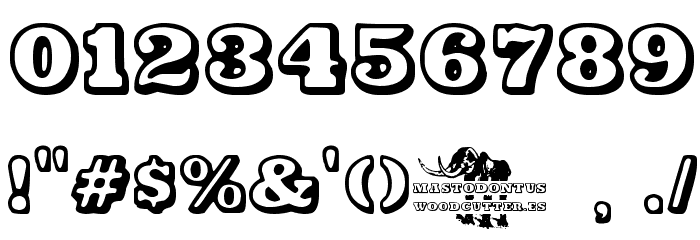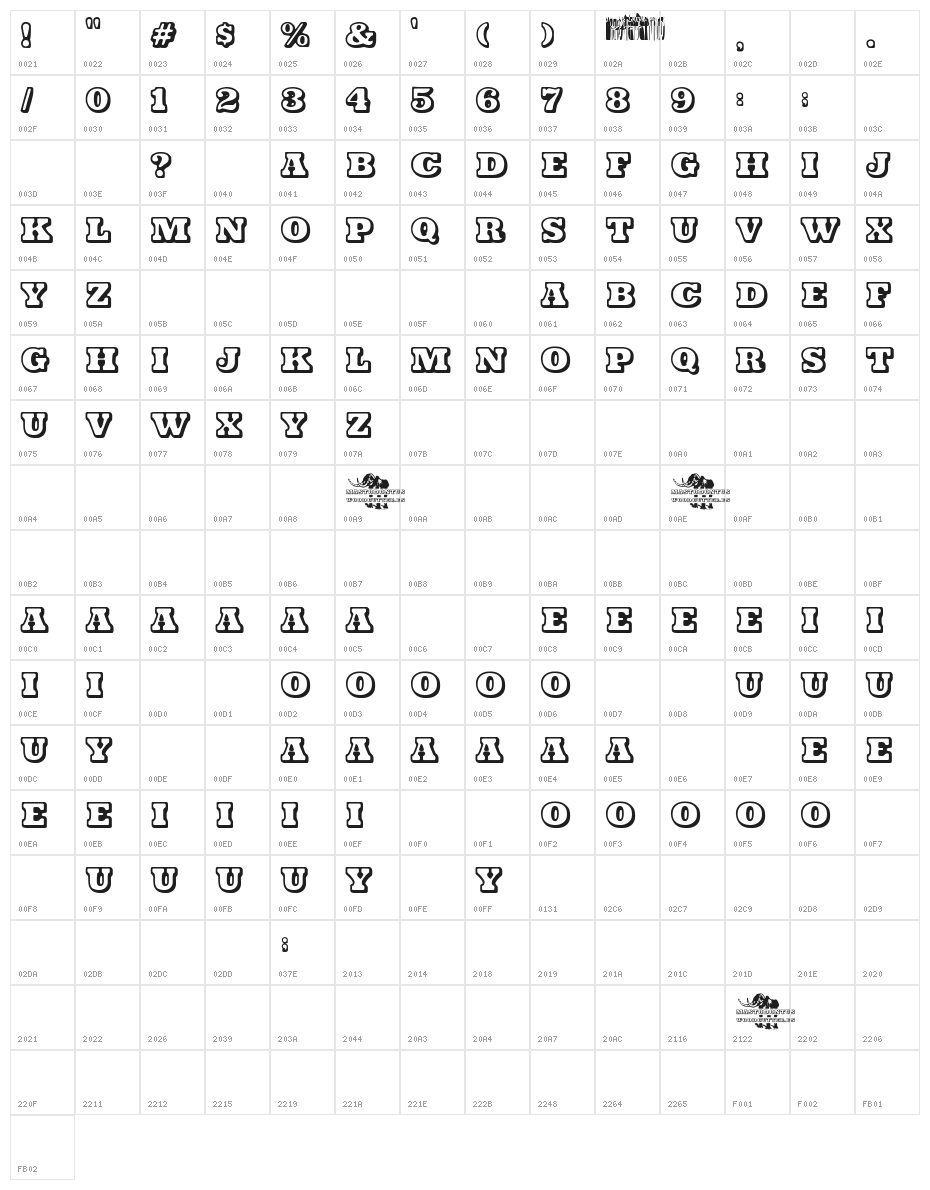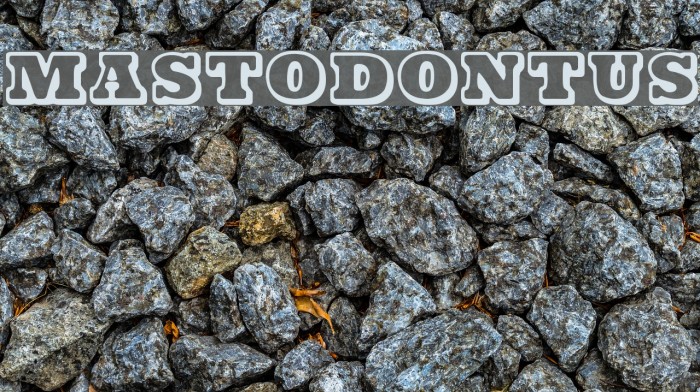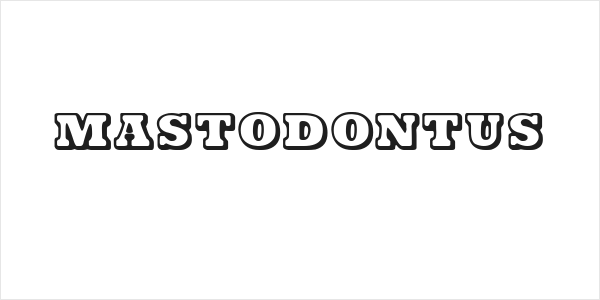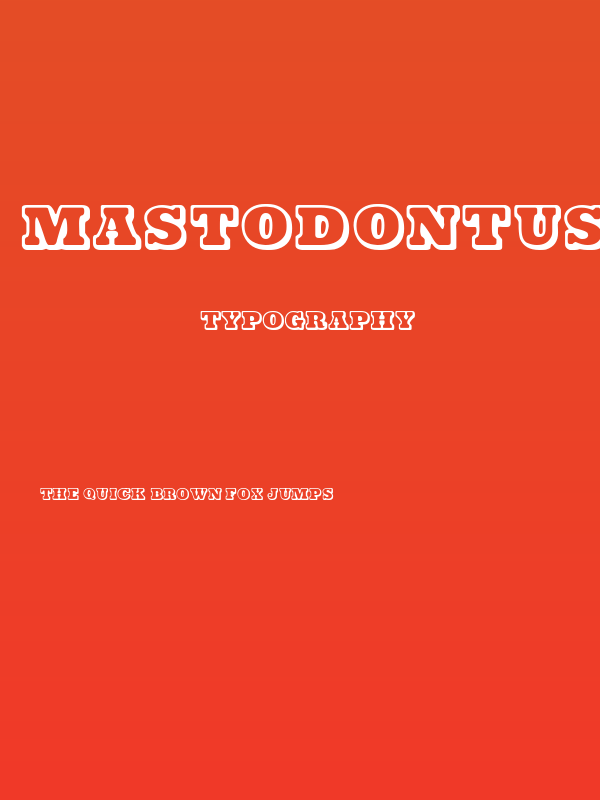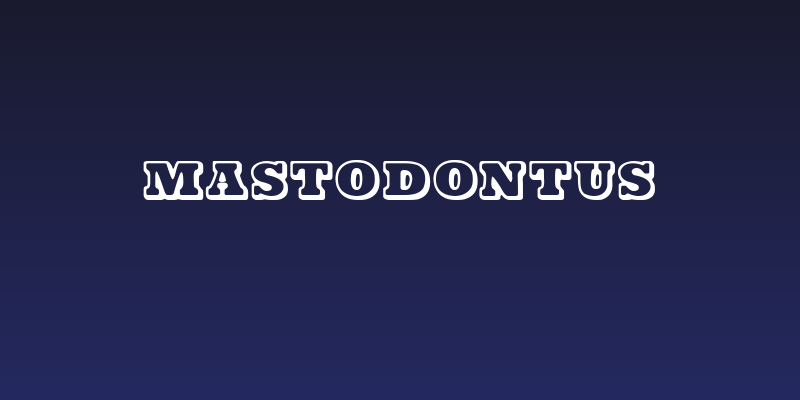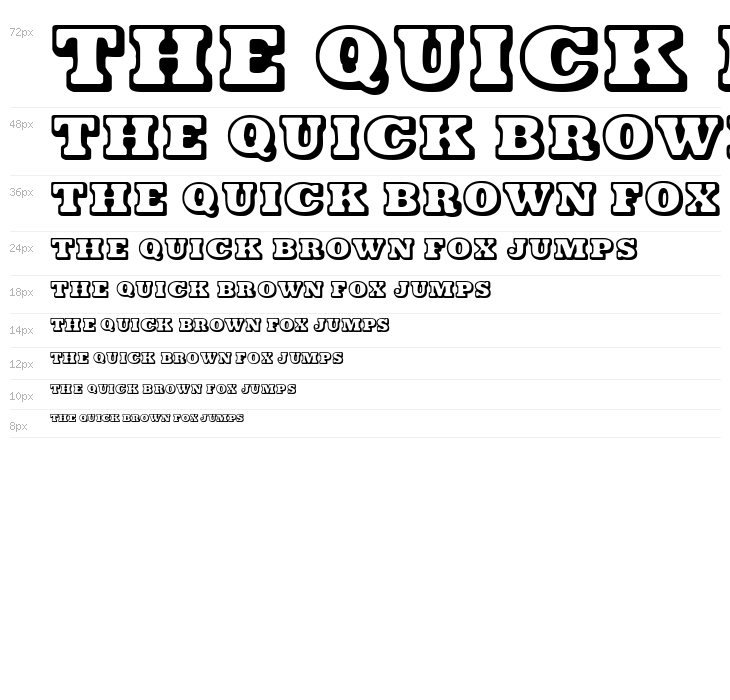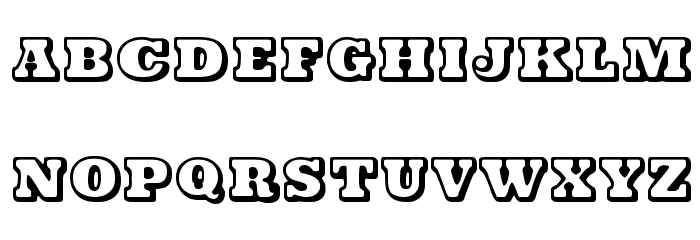
Mastodontus Font
Mastodontus Description
This font features bold, blocky characters with a strong presence, ideal for making a statement. The letters are outlined, giving them a distinct, layered appearance that adds depth and dimension. The style is reminiscent of vintage woodcut prints, with a playful yet robust aesthetic. The characters are evenly spaced, ensuring readability while maintaining a decorative flair. The numbers and special characters follow the same bold and outlined style, making them cohesive with the alphabet. This font is perfect for projects that require a touch of nostalgia with a modern twist.
| Proposed Projects | Ideal for posters, logos, headlines, and any design needing a bold, vintage touch. |